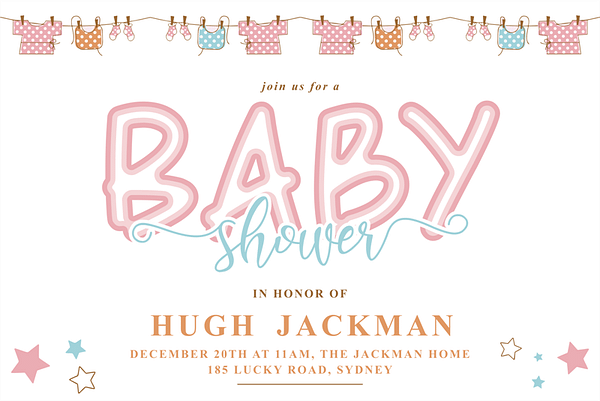
Introducing Baby Marker font, a quirky and whimsical handwritten font that adds a touch of originality to your designs. Stand out from the crowd with the captivating allure of Baby Marker font. Whether you’re designing for a baby shower or seeking a charming baby font style, this font is your go-to choice. Embrace the joyous spirit of creativity with the enchanting Baby Marker font.
With its playful appearance, this font is perfect for a wide range of creative ideas. From letterheads and titles to stationery, it will bring a delightful charm to your projects.
Unleash your creativity with this adorable handwritten font. Its bold style and unique character make it a perfect choice for adding a personal touch to your designs. With a plethora of alternative ligatures, it truly captures the essence of your own handwriting.
Baby Marker captures the authentic, bold look of a felt-tip marker. With its thick, organic strokes and playful energy, this font adds a personal and “handmade” touch to any design. It’s bubbly, loud, and incredibly fun to use for projects that need to pop!
Perfectly suited for:
- Kids & School: Classroom posters, children’s book titles, and school event flyers.
- Creative Crafts: Stickers, DIY projects, scrapbooking, and personalized gifts.
- Apparel: Fun T-shirt designs, tote bags, and children’s clothing labels.
- Digital Media: Playful YouTube thumbnails, fun Instagram stories, and web banners.
- Ligature & Alternate